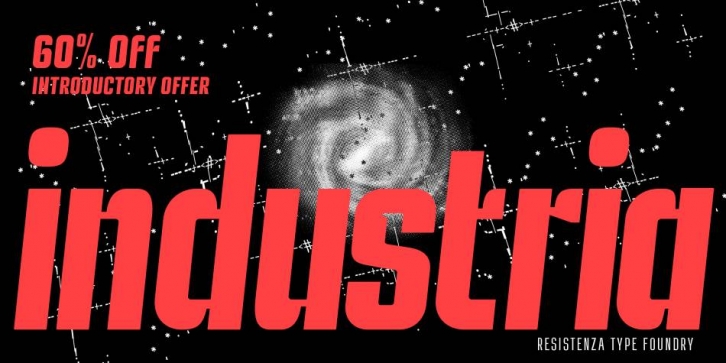
Publisher: Resistenza.es
Designed by Giuseppe Salerno and Paco González, Industria Sans is a display sans font family. This typeface has thirty-six styles and was published by Resistenza.es.
Industria Sans is a new version of Industria Serif